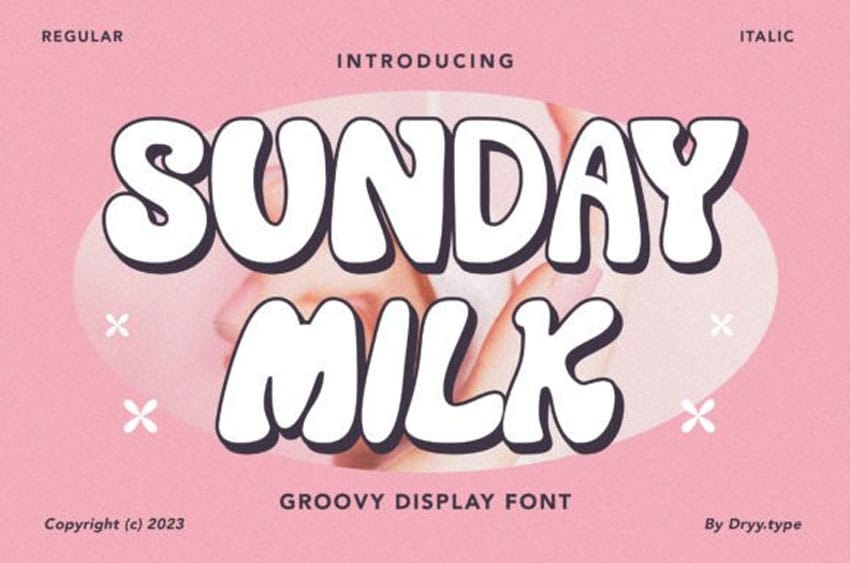
Sunday Milk Font is a display font that exudes a groovy and modern vibe with its playful and bold letterforms. Its retro-inspired design captures the essence of the ’60s and ’70s while remaining fresh and contemporary. Ideal for projects that require a touch of nostalgia and a bold visual impact, this font is a must-have for any modern designer.